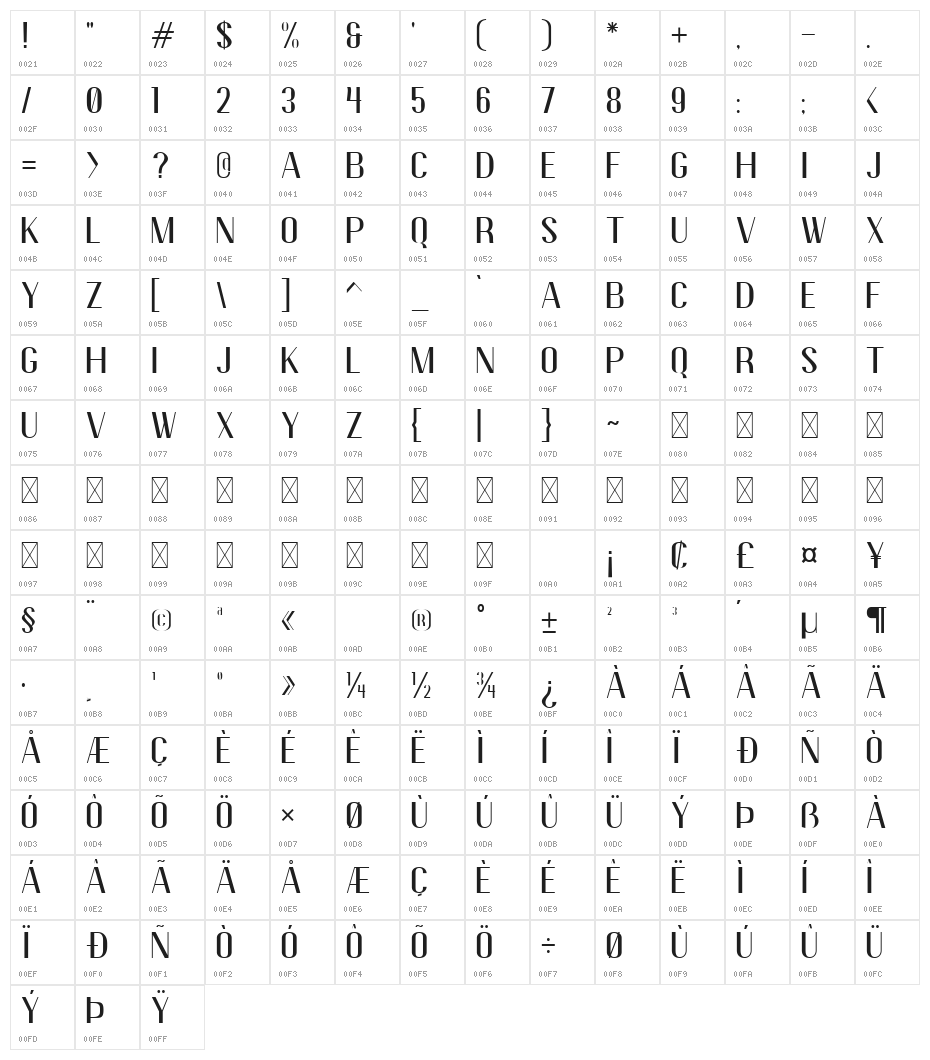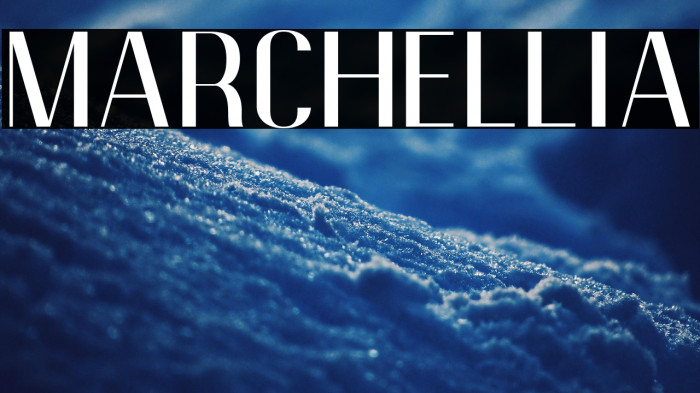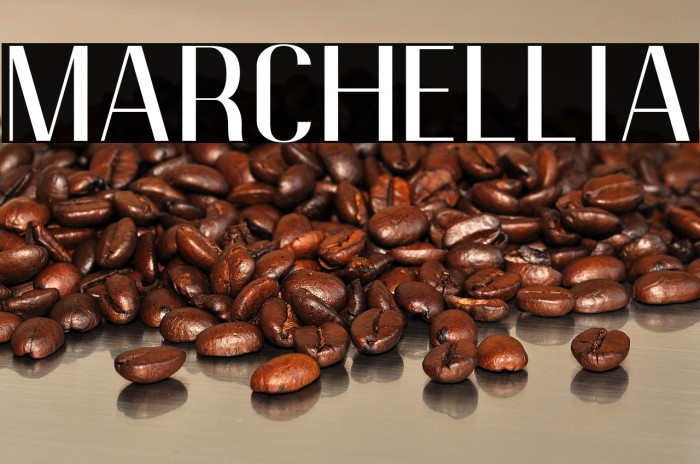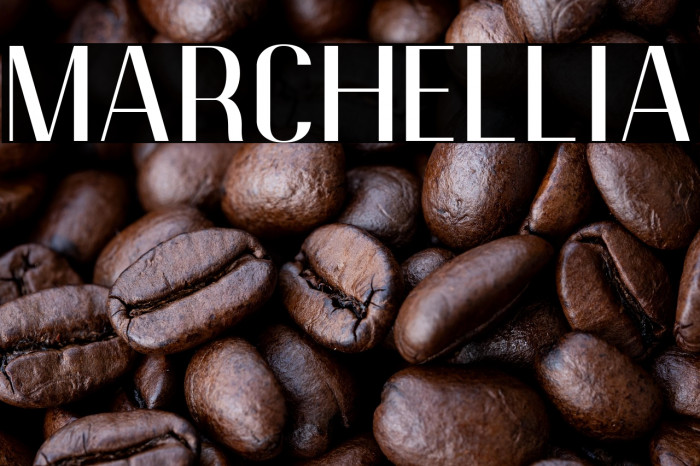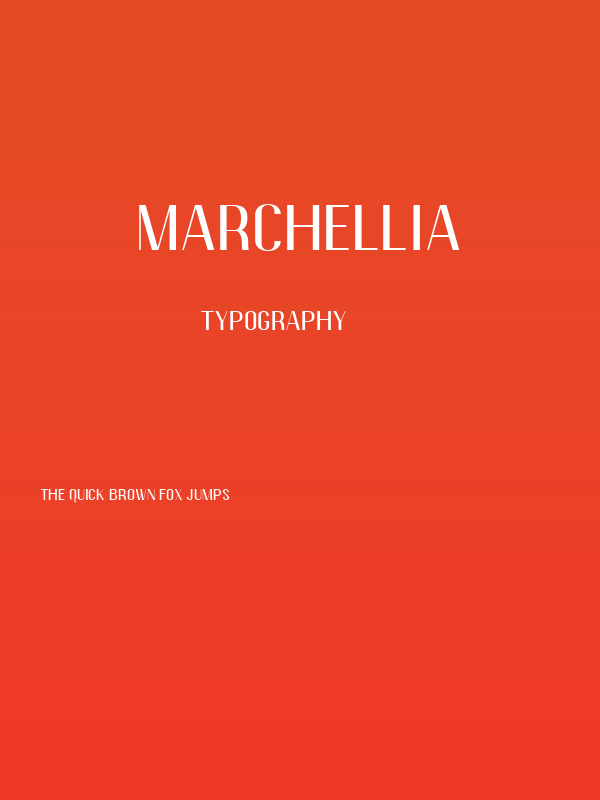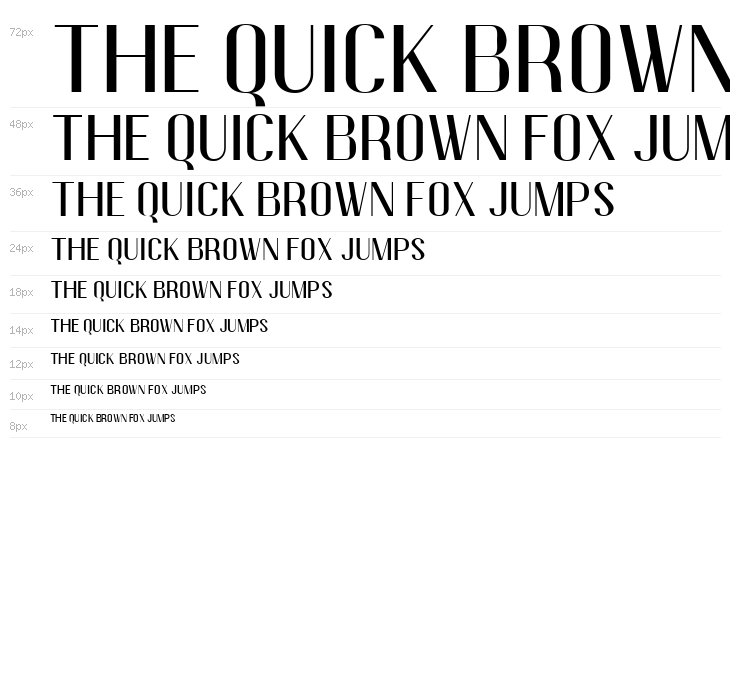
Marchellia Font
Marchellia Description
This font features a modern and elegant design with a high contrast between thick and thin strokes. The uppercase letters are tall and slender, giving a sophisticated appearance, while the lowercase letters maintain a consistent style that complements the uppercase. The numerals are distinct and clear, ensuring readability. Special characters are designed with the same attention to detail, making them suitable for various applications. The overall aesthetic is sleek and stylish, making it ideal for contemporary design projects.
| Proposed Projects | Ideal for fashion magazines, luxury branding, editorial design, and high-end product packaging. |